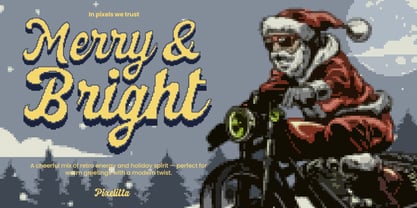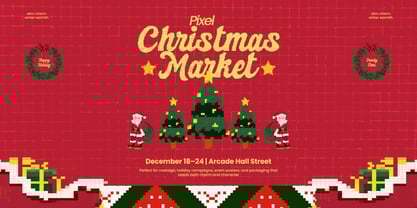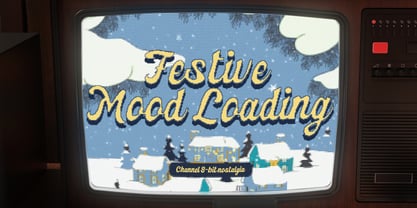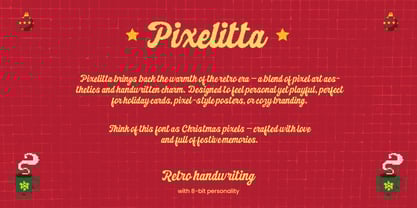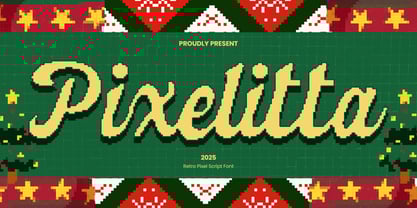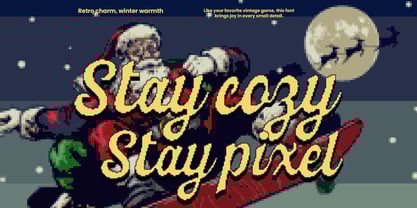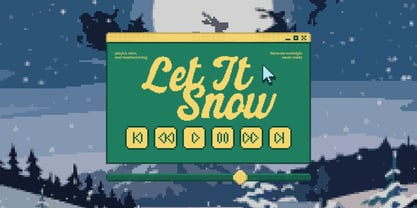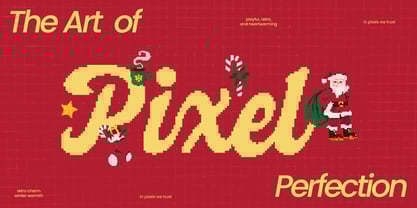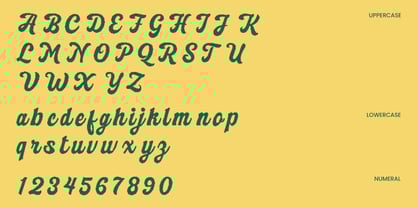
Pixelitta
The Pixelitta Font Family was designed by Virgiawan Listanto and published by Inviline. Pixelitta contains 1 styles. More about this family
Pixelitta is a retro-inspired pixel script font that combines the warmth of handwritten strokes with the charm of nostalgic 8-bit graphics. What you get: uppercase, lowercase, numerals, pixel-perfect script design, and festive-ready characters. Perfect for Christmas campaigns, cozy holiday cards, vintage video game aesthetics, pixel posters, warm product packaging, and cheerful event branding. Whether you’re designing for a retro market, nostalgic merchandise, or playful seasonal ads, Pixelitta adds a joyful handcrafted flair that feels both pixelated and personal.